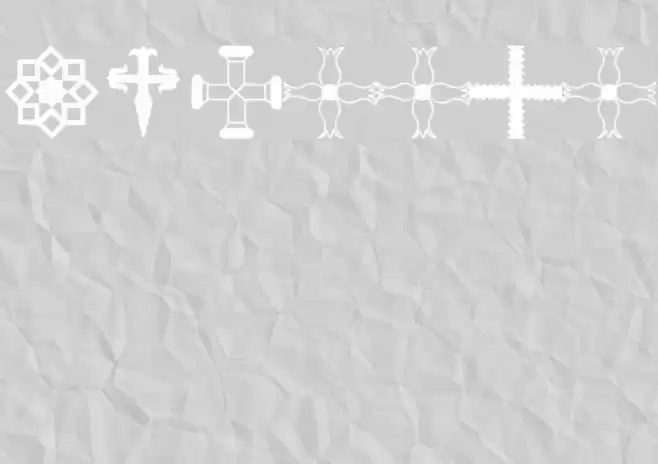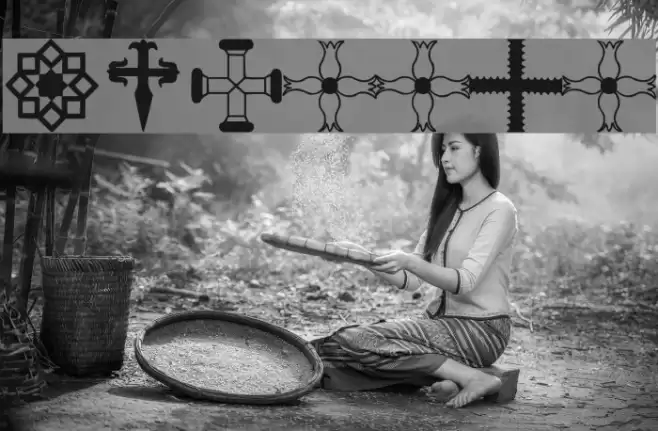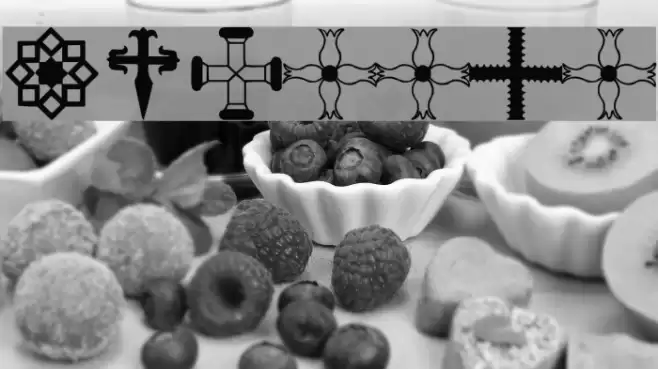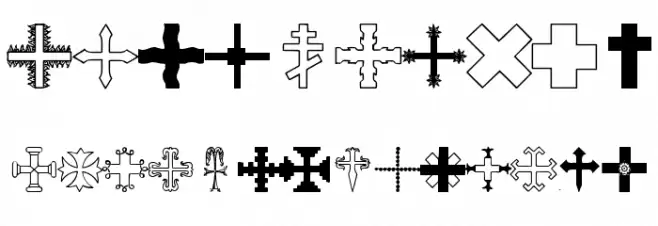
Crosses Font
Crosses Description
A decorative display font composed entirely of various cross symbols, each character featuring a unique and intricate cross design with a mix of solid and outlined styles, high visual diversity, and ornamental details.
A display font made up of assorted decorative cross symbols from Uncategorized fonts.
- Proposed Projects: Religious event materials, historical or cultural posters, themed invitations, graphic design accents, logo elements, tattoo designs.
- Overall Style: Decorative, Ornamental, Thematic
- Use Case: Logos, Decorative elements, Themed headlines, Posters